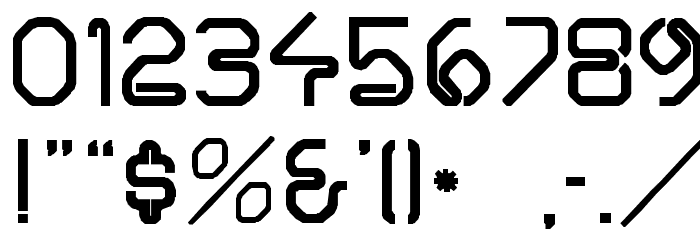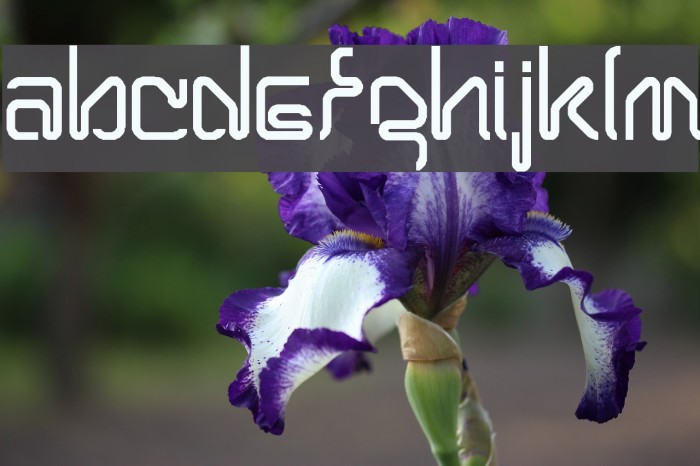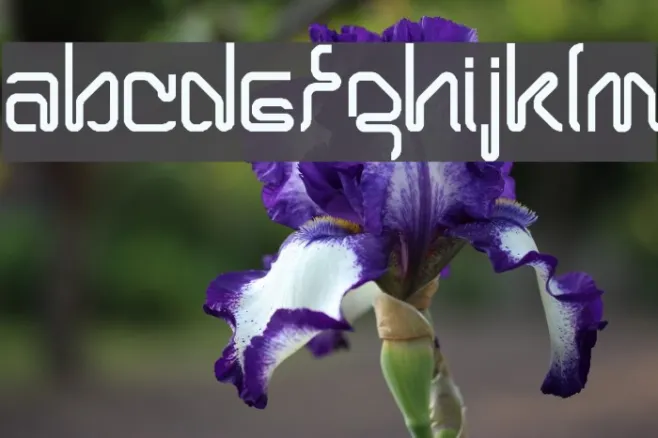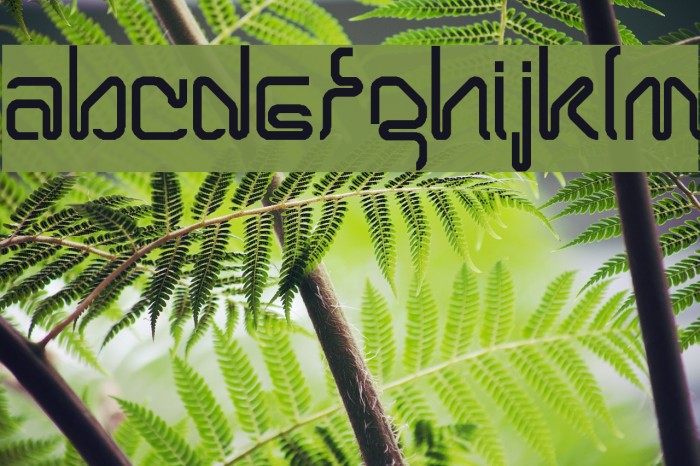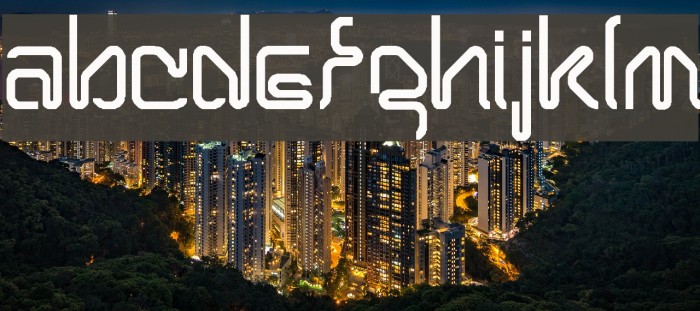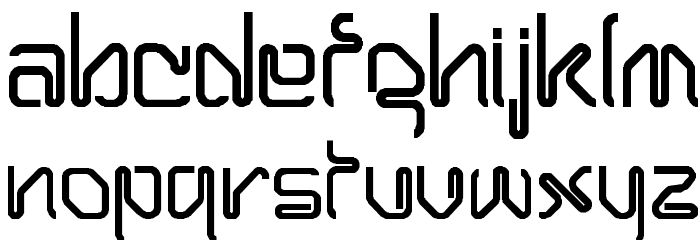
Hairpin-Normal Font
This font features a unique and modern design with geometric shapes and a futuristic feel. The characters are constructed with a combination of straight lines and curves, creating a dynamic and eye-catching appearance. The uppercase and lowercase letters maintain a consistent style, with a distinct angularity that adds to the font's contemporary aesthetic. The numerals and special characters follow the same design principles, ensuring a cohesive look across all elements. This font is ideal for projects that require a bold and innovative touch, making it suitable for technology-related themes or creative branding.
A modern, geometric font with a futuristic and dynamic design.
• Proposed Projects: Ideal for technology branding, futuristic designs, and creative advertising.
• Category: Decorative/Display
• Contrast: Low
• Overall Style: Modern
• Use Case: Logos, Headlines, Posters